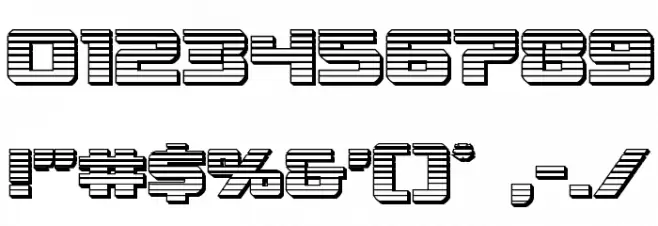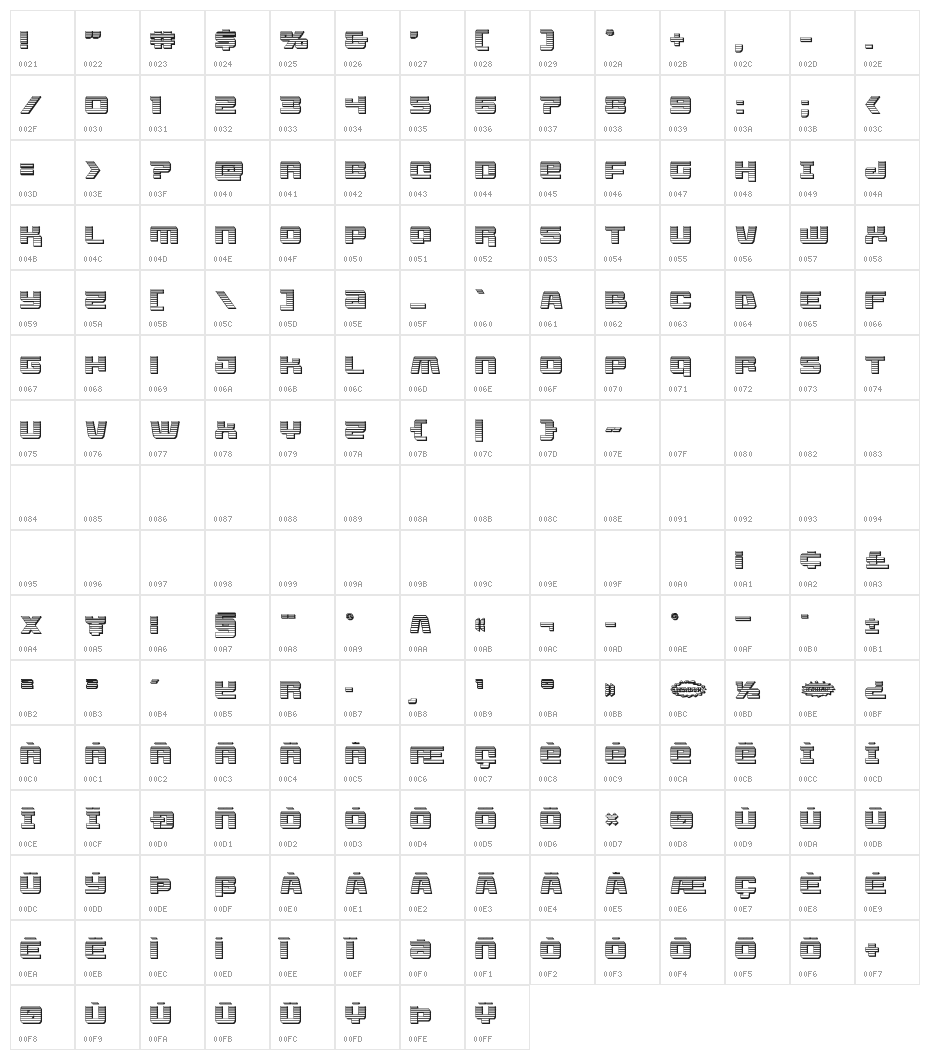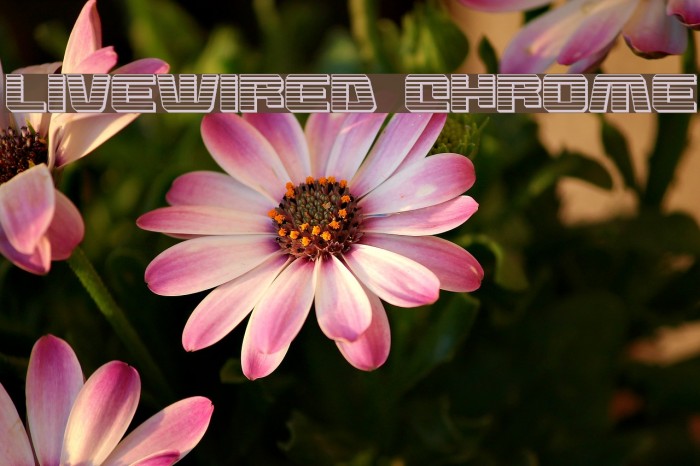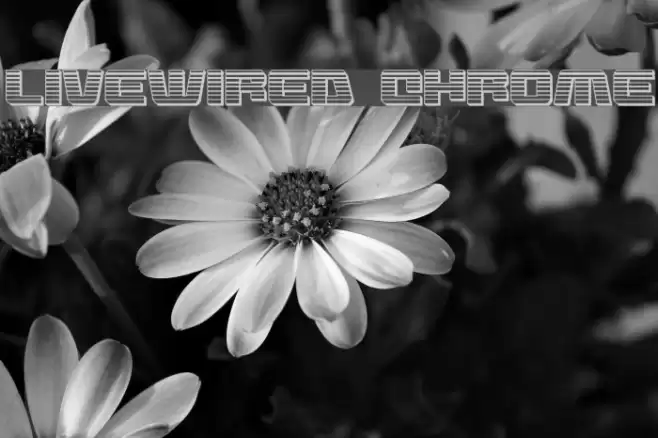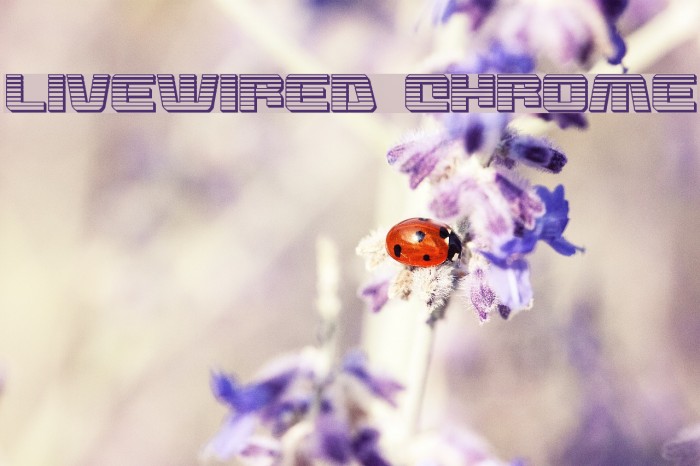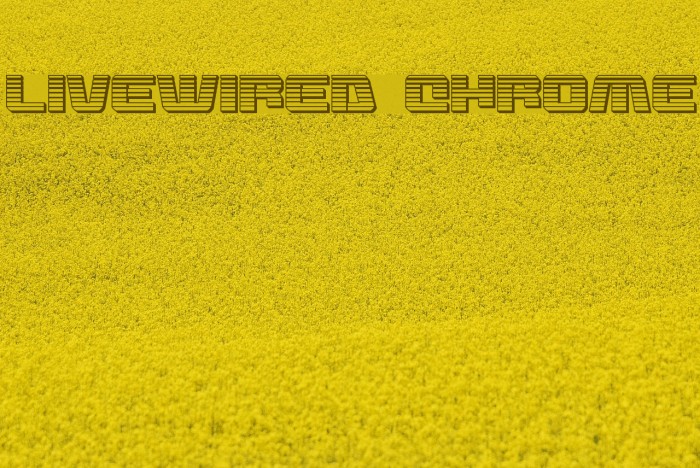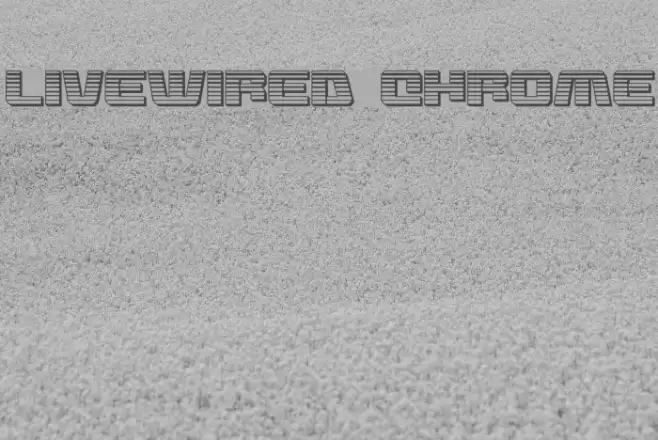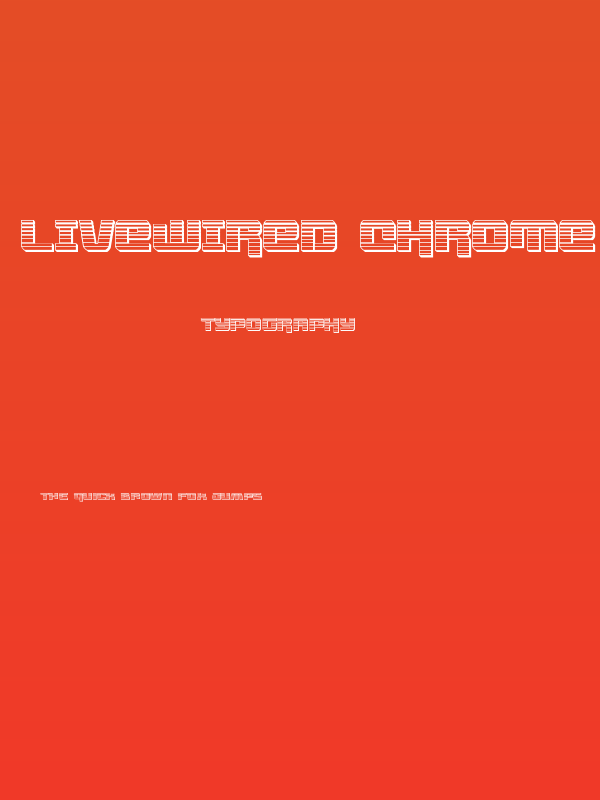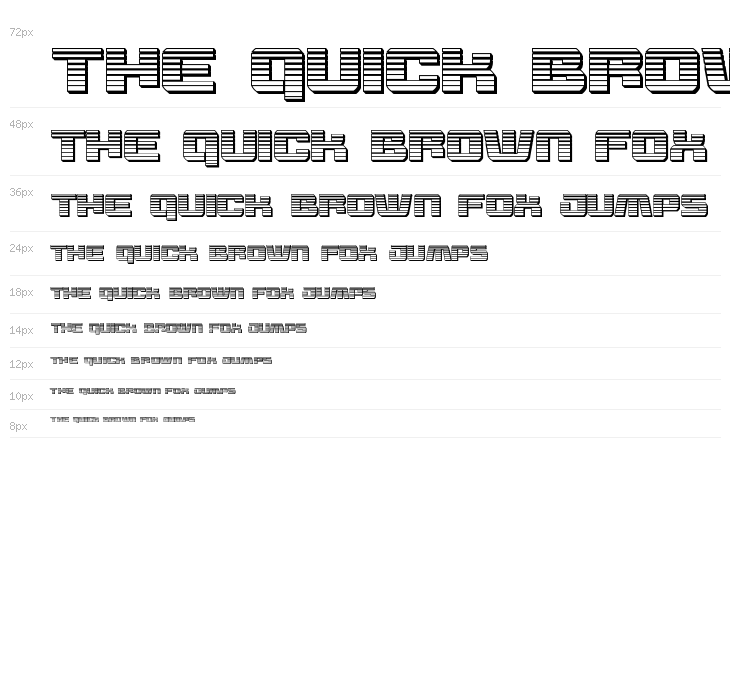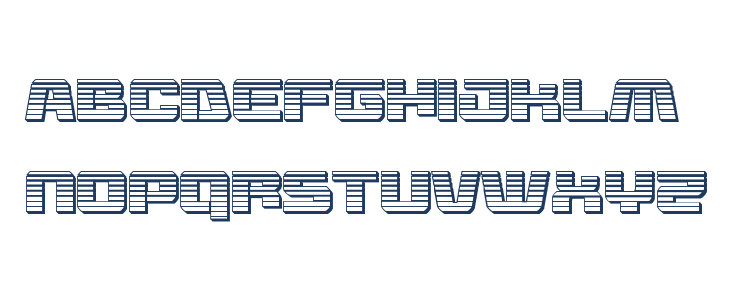
Livewired Chrome Font
Livewired Chrome Description
This font features a unique, futuristic design with a three-dimensional, layered appearance. Each character is constructed with parallel lines that create a sense of depth and movement, reminiscent of digital or electronic aesthetics. The geometric structure is consistent across uppercase, lowercase, numbers, and special characters, providing a cohesive look. The font's bold and striking style makes it ideal for attention-grabbing headlines or logos. Its intricate design suggests a modern, tech-inspired theme, perfect for projects that aim to convey innovation and forward-thinking.
| Proposed Projects | Ideal for tech-themed branding, futuristic posters, digital media, and innovative product packaging. |